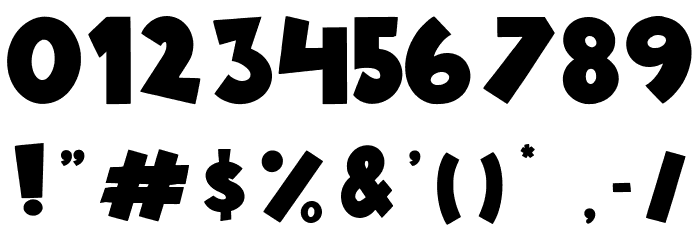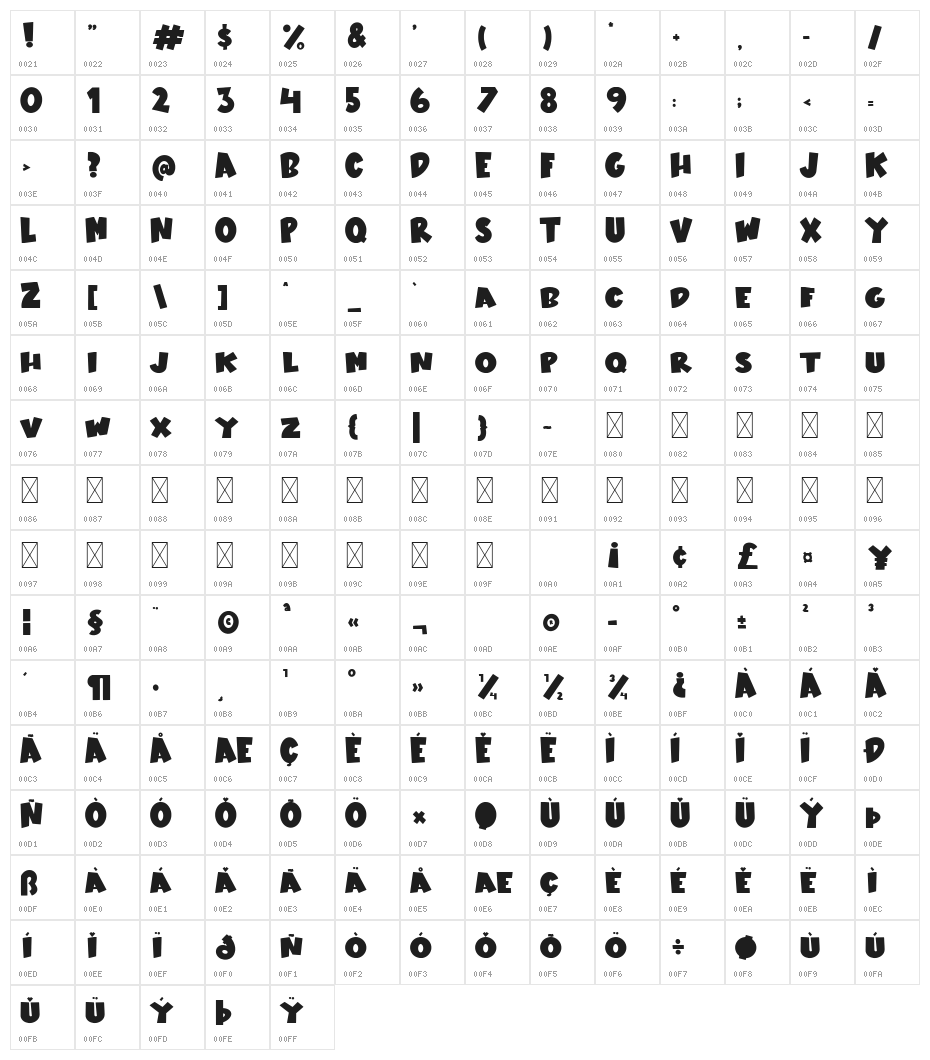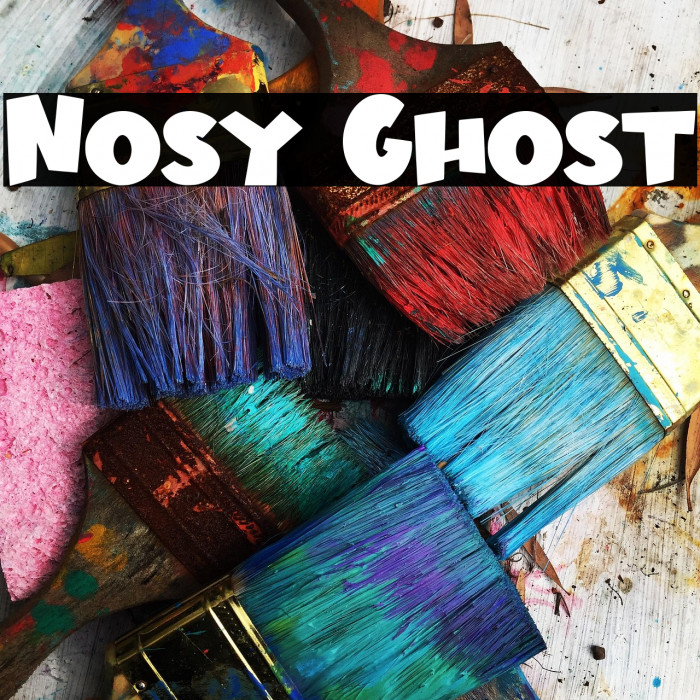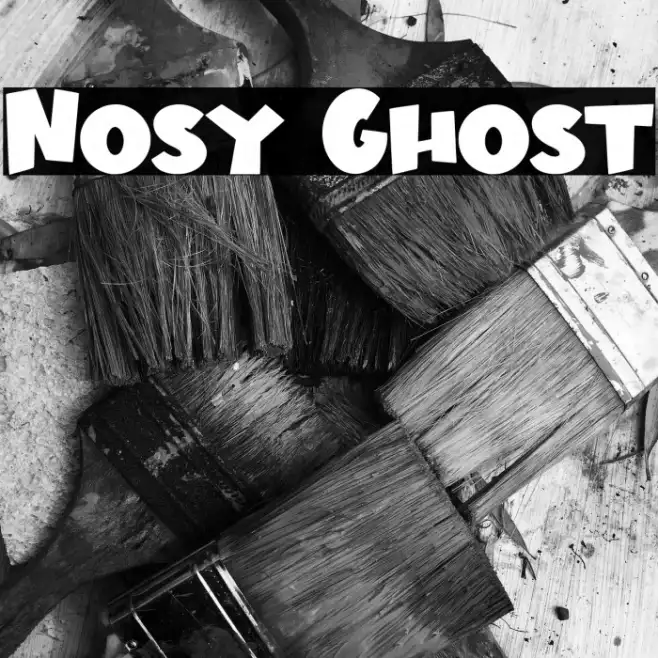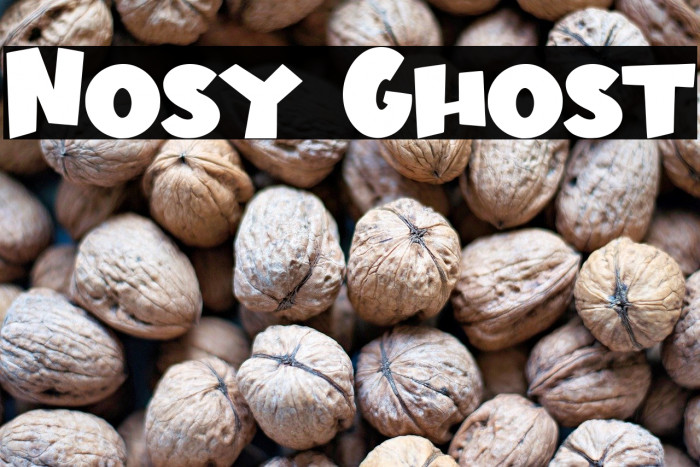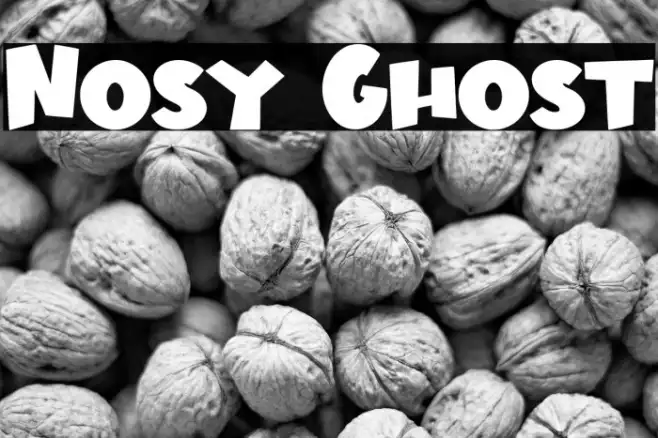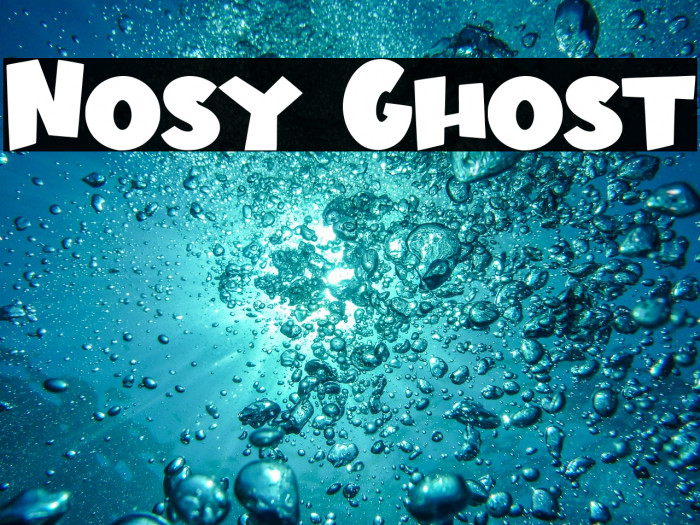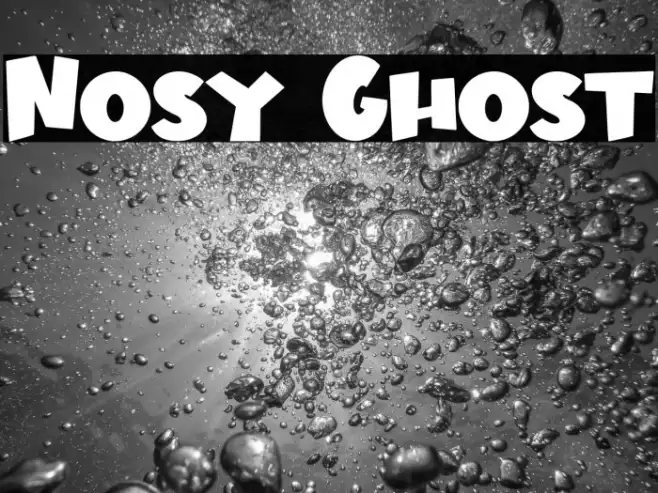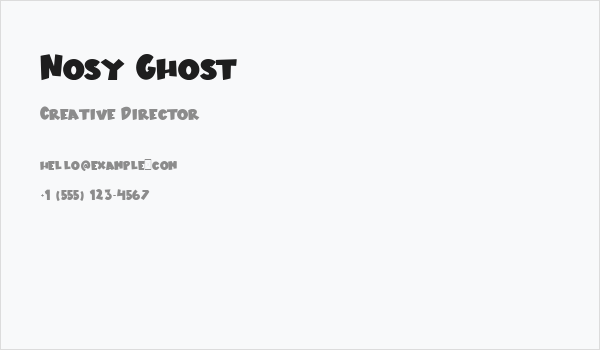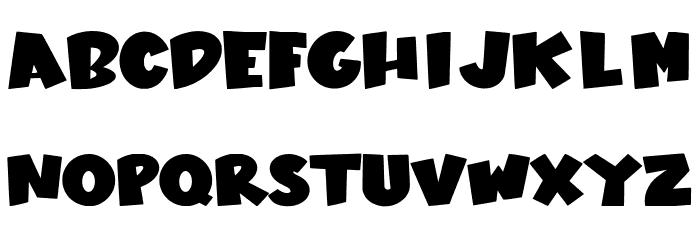
Nosy Ghost Font
Nosy Ghost Description
This font features bold, playful characters with a slightly irregular and whimsical design. The letters are thick and rounded, giving a sense of fun and energy. The uppercase and lowercase letters maintain a consistent style, with exaggerated curves and angles that add to the font's quirky personality. The numbers and special characters follow the same playful aesthetic, making it suitable for creative and informal projects. The overall appearance is eye-catching and distinct, perfect for grabbing attention in a variety of contexts.
| Proposed Projects | Ideal for children's books, comic strips, party invitations, and playful branding. |